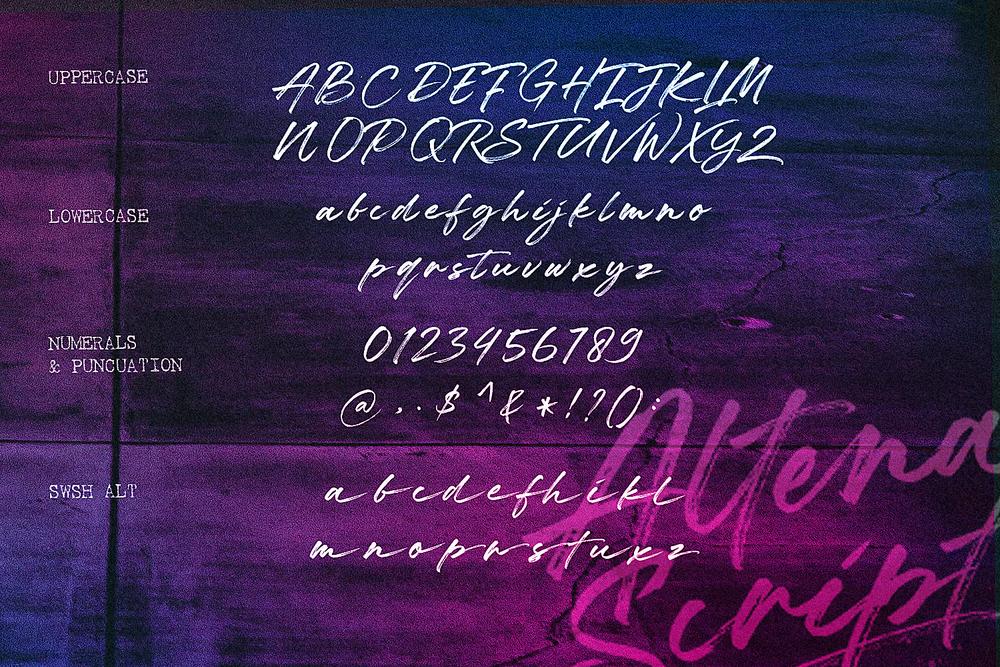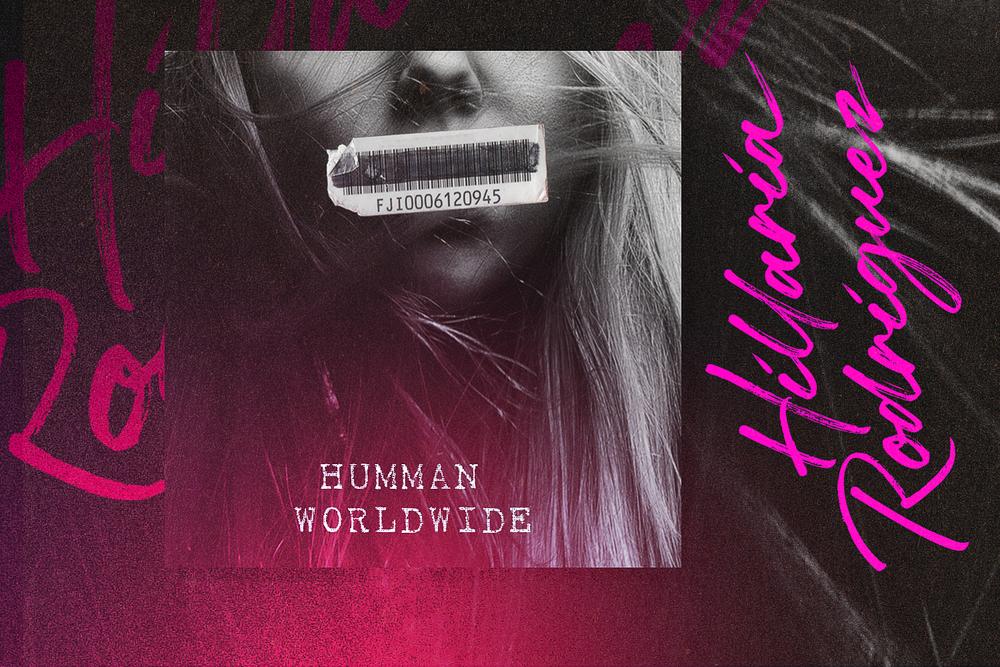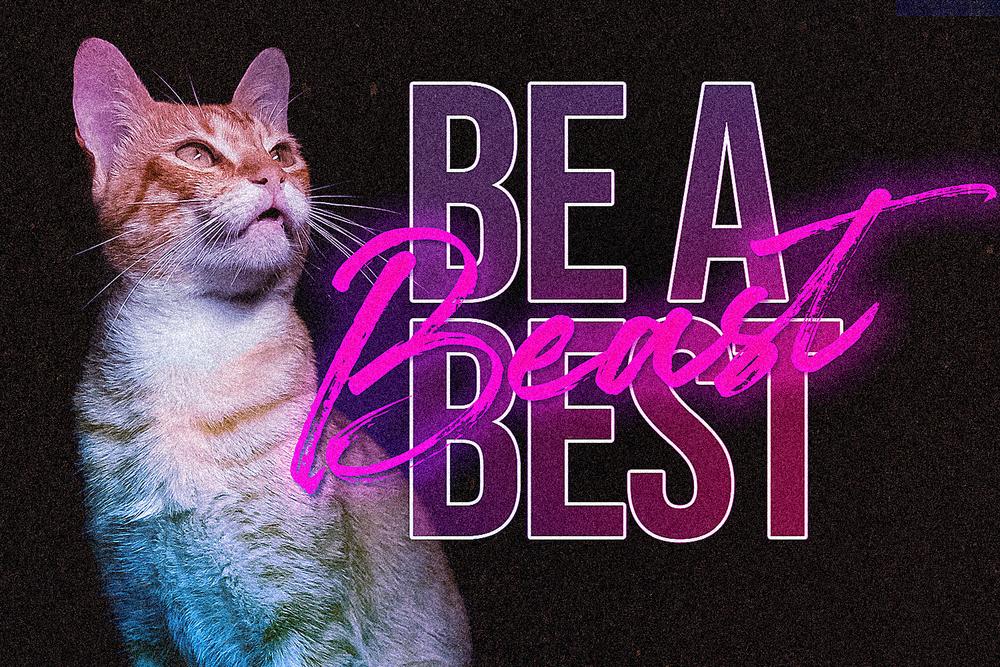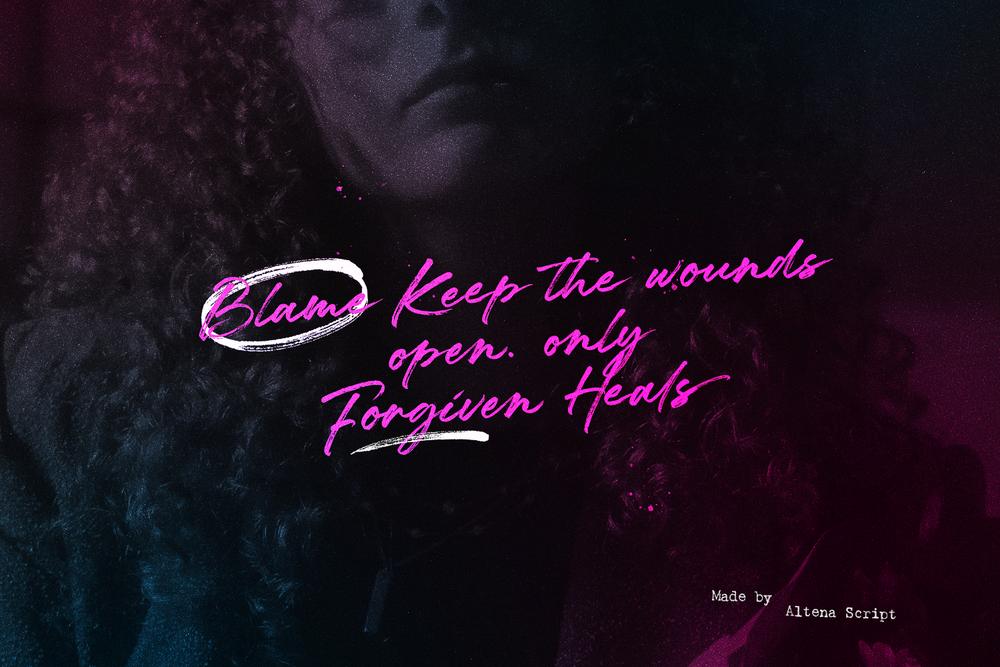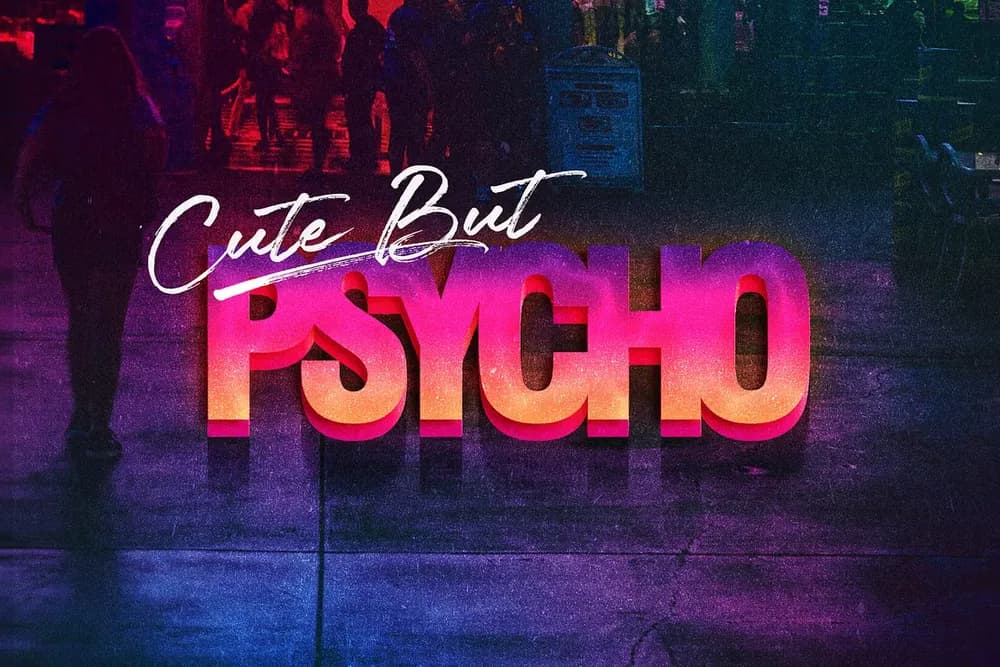
Altena is a textured brush font characterized by its italic style and contemporary design. It features a handcrafted appearance with an irregular baseline, giving it a unique artistic flair. This font is versatile and well-suited for various applications, including: Landing Page Designs: Captivating text that draws attention. Quotes: Enhances the emotional resonance of messages. Branding and Logos: Creates a memorable and distinctive identity. Packaging Designs: Adds charm and personality to products. Posters: Eye-catching typography for promotional materials. Album Covers: Perfect for conveying creativity in music. Overall, Altena is an excellent choice for projects that aim to express creativity and modernity.